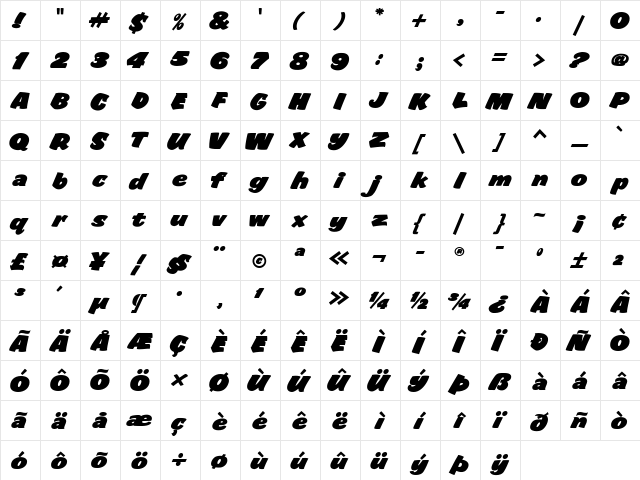
Sale Bold Italic
Design Context for Sale Typeface
Sale offers clean, dependable letterforms without strong stylistic allegiance, making it a practical choice for designers who need flexibility. Its italic angle brings a sense of urgency and motion to the letterforms. The heavy weight commands attention and anchors typographic hierarchies.